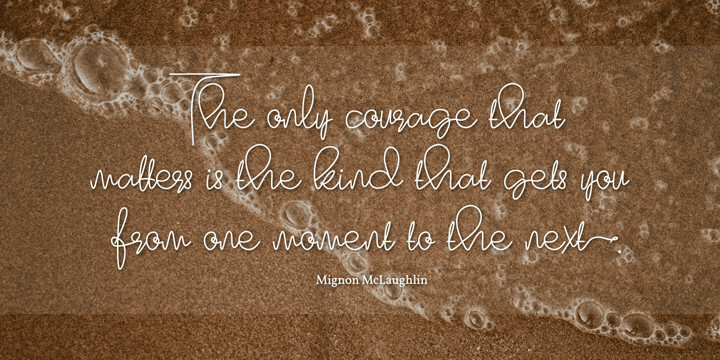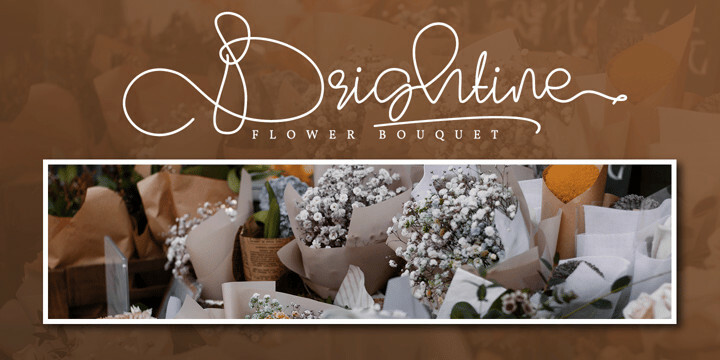
Marrline Font
Marrline FontMarrline is a modern calligraphy font. It brings a beautiful and attractive typeface. Made for any professional project branding. It is the best for logos, branding, wedding and quotes.